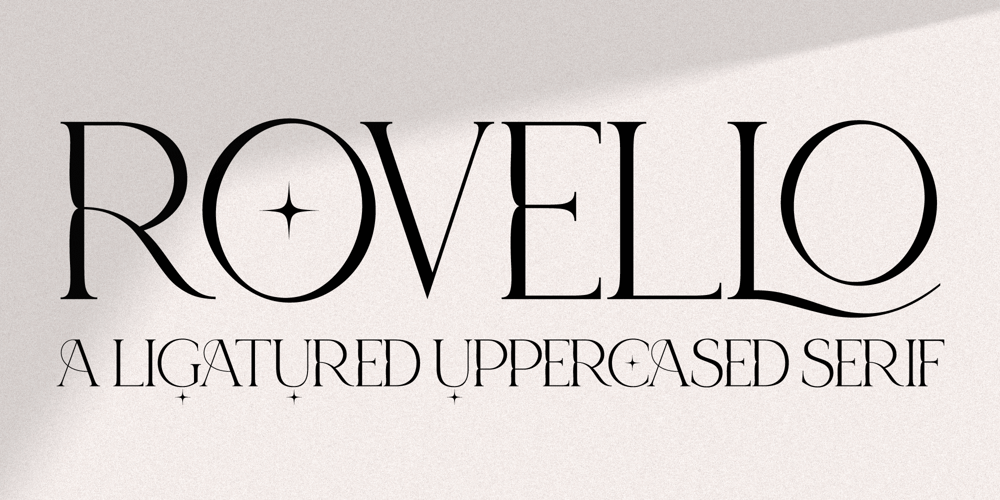
Rovello Serif Font Family was designed by Zak M and published by Prestige Artsy Studio. Rovello Serif contains 1 styles and family package options. Rovello Serif is a font of unparalleled elegance, where every letter dances in perfect harmony. Its sleek, ligatured uppercased design exudes sophistication, making it the epitome of timeless style.From branding to editorial, Rovello Serif is the ultimate choice for those who seek perfection in every stroke.–Uppercase